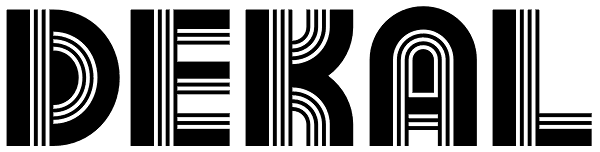
Dekal
A modern display typeface with ultra sharp detailing. The unique line style takes influence from earlier fonts produced in the 1970’s by Letraset. These lines are then blended with a stronger letterform creating a more visually dynamic font suitable...
Dekal
Dekal Inline
Dekal Solid